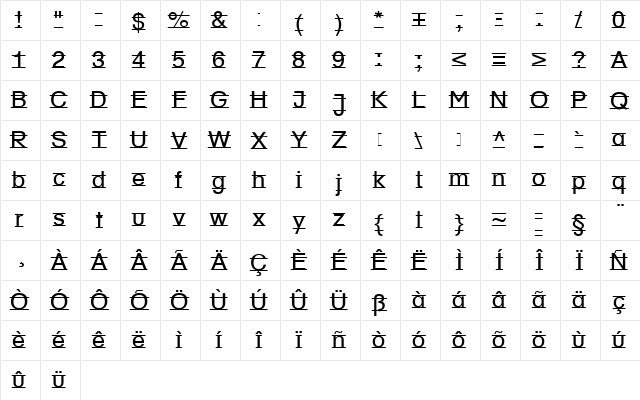
DR BY 2 Normal
Design Context for DR BY 2 Typeface
DR BY 2 offers clean, dependable letterforms without strong stylistic allegiance, making it a practical choice for designers who need flexibility.